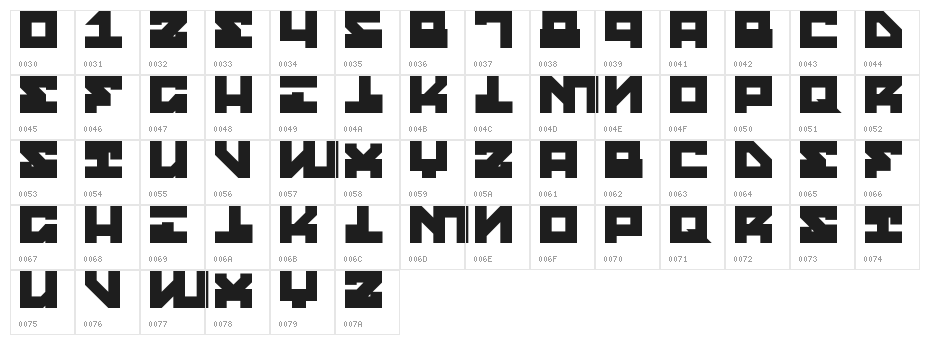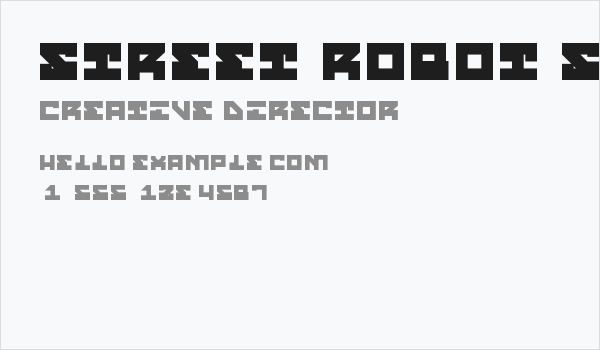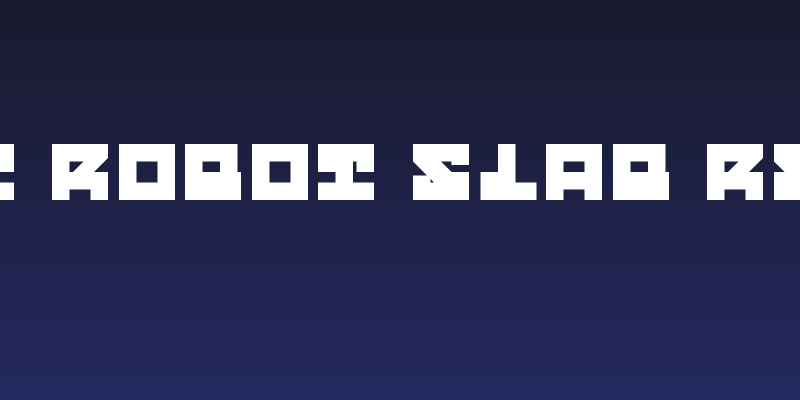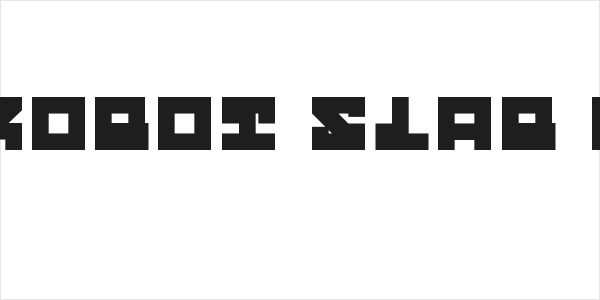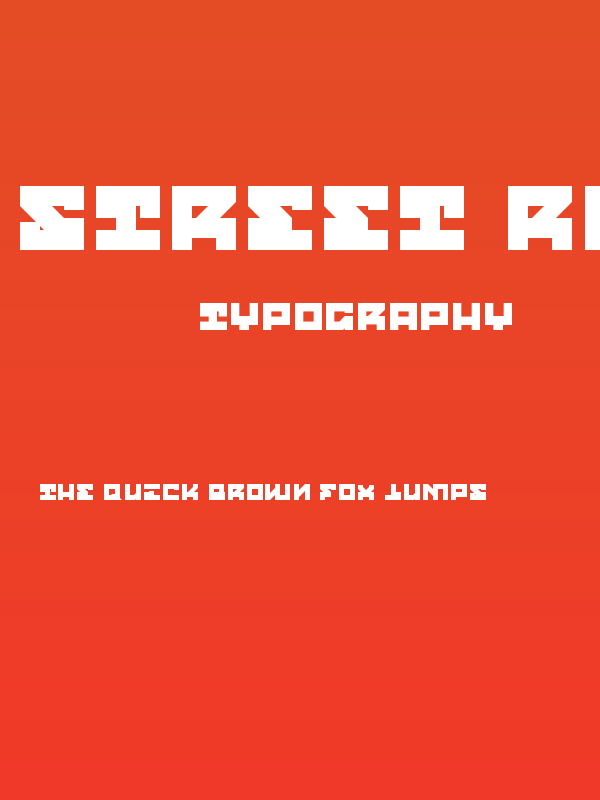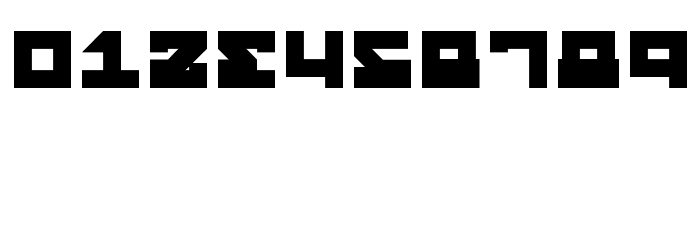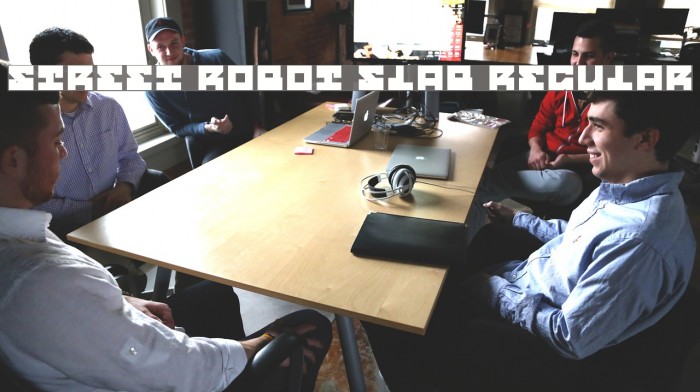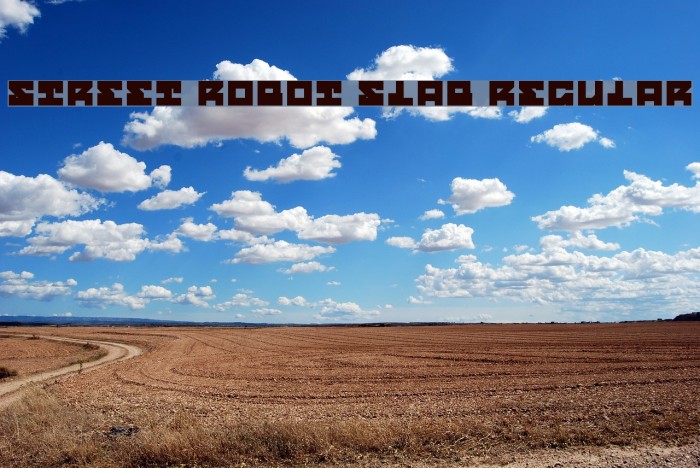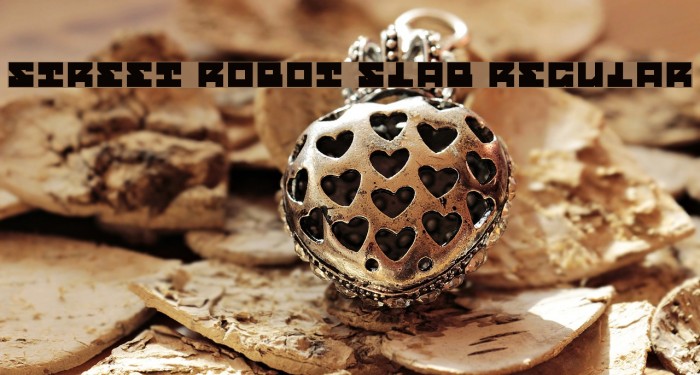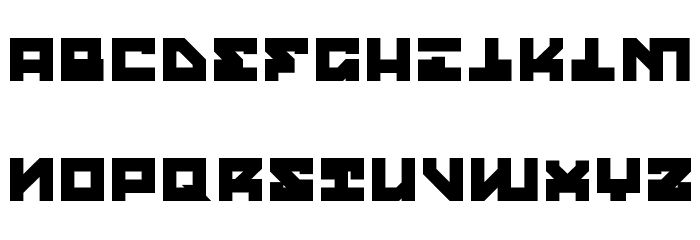
Street Robot Slab Regular Font
Street Robot Slab Regular Description
This font features a bold, geometric design with a futuristic and robotic aesthetic. The characters are constructed with sharp angles and block-like shapes, giving it a strong and industrial feel. The uppercase and lowercase letters maintain a consistent style, with minimal curves and a focus on straight lines and sharp edges. The numbers and special characters follow the same design principles, ensuring uniformity across all glyphs. This font is ideal for projects that require a modern and edgy look, such as technology-related branding or sci-fi themed designs.
| Overall Style | Futuristic, Industrial |
| Proposed Projects | Ideal for technology branding, sci-fi themed designs, video game titles, and futuristic posters. |